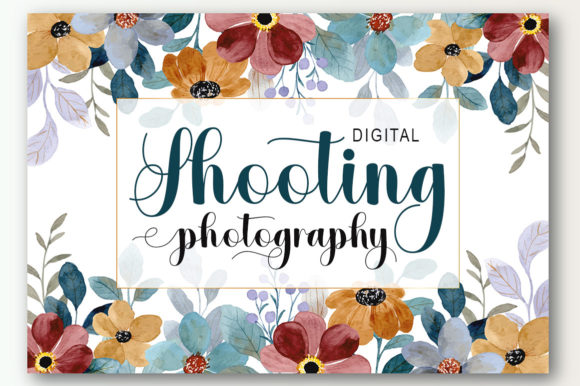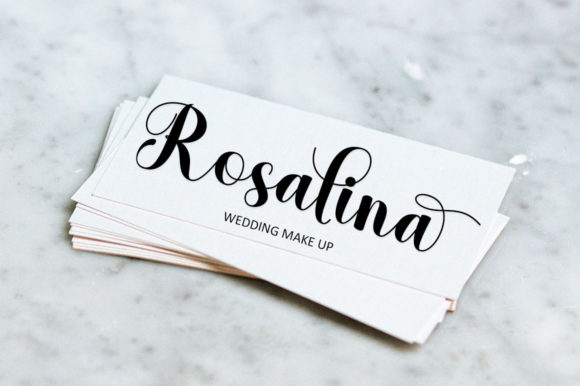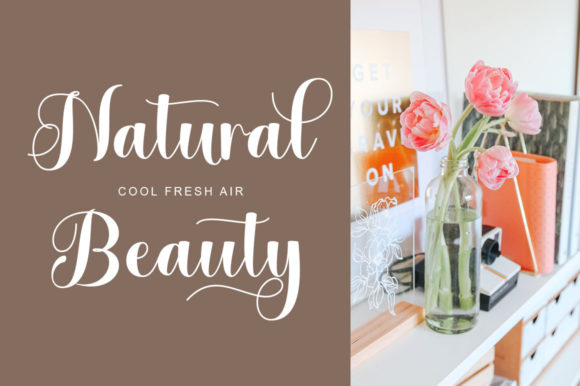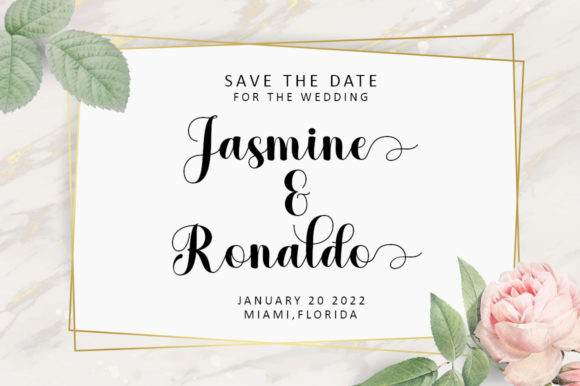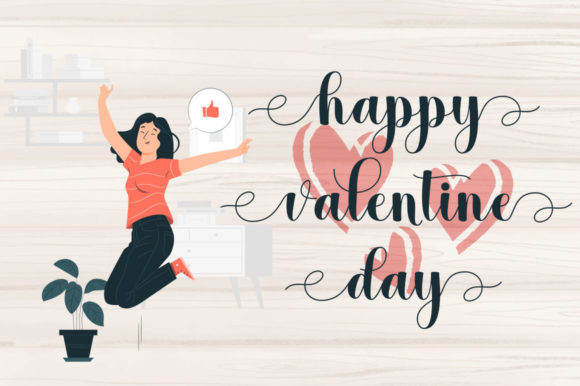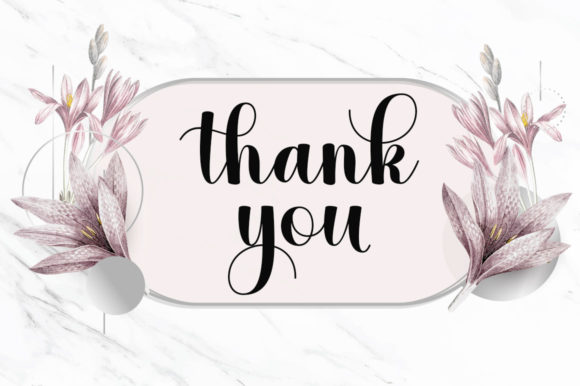
Baby Lovely Script Font: Elevate Your Designs with Elegance and Class
In the world of typography, a beautiful script font can make all the difference in creating stunning designs that capture the essence of elegance and sophistication. If you’re a designer or crafter looking for a font that exudes refinement and poise, look no further than the Baby Lovely Script Font. This lovely and delicate script font is specifically crafted to add a touch of luxury and freshness to your designs, making it perfect for a wide range of creative projects.
The Beauty of Baby Lovely Script Font
Baby Lovely Script Font is a true gem in the world of typography. Its elegant and flowing lines are carefully crafted to create a sense of movement and fluidity, making it perfect for designs that require a touch of sophistication. Whether you’re working on a wedding invitation, a branding project, or a digital design, this font is sure to impress. The font’s delicate features and beautiful swashes add a level of refinement and luxury, making it ideal for designers and crafters who want to create stunning and high-end designs.
One of the standout features of Baby Lovely Script Font is its PUA (Private Use Area) encoding. This means that you can access all glyphs and swashes with ease, giving you complete creative control over your designs. With PUA encoding, you can effortlessly navigate through the font’s extensive character set, including alternate letters, ligatures, and swashes. This feature makes it easy to create unique and customized designs that reflect your personal style.
Perfect for a Wide Range of Designs
Baby Lovely Script Font is an incredibly versatile font that can be used for a wide range of designs. Whether you’re working on:
- Branding and packaging designs
- Digital designs, such as social media graphics and blog headers
- Print designs, such as brochures and flyers
- Crafting projects, such as card making and scrapbooking
This font is sure to add a touch of elegance and sophistication to your work.
Why Choose Baby Lovely Script Font?
So why choose Baby Lovely Script Font over other script fonts on the market? Here are just a few reasons:
- Elegant and refined design: Baby Lovely Script Font is carefully crafted to exude elegance and sophistication, making it perfect for designs that require a touch of luxury.
- PUA encoded for easy access: With PUA encoding, you can effortlessly access all glyphs and swashes, giving you complete creative control over your designs.
- Versatile and flexible: This font can be used for a wide range of designs, from wedding invitations to digital designs.
- Beautiful and refreshing look: Baby Lovely Script Font is designed to add a touch of freshness and beauty to your designs, making it perfect for designers and crafters who want to create stunning and unique work.
In conclusion, Baby Lovely Script Font is a stunning and elegant script font that is perfect for designers and crafters who want to add a touch of sophistication and luxury to their designs. With its PUA encoding and extensive character set, this font offers endless creative possibilities. Whether you’re working on a wedding invitation, a branding project, or a digital design, Baby Lovely Script Font is sure to impress. So why wait? Download Baby Lovely Script Font today and start creating stunning designs that exude elegance and class.